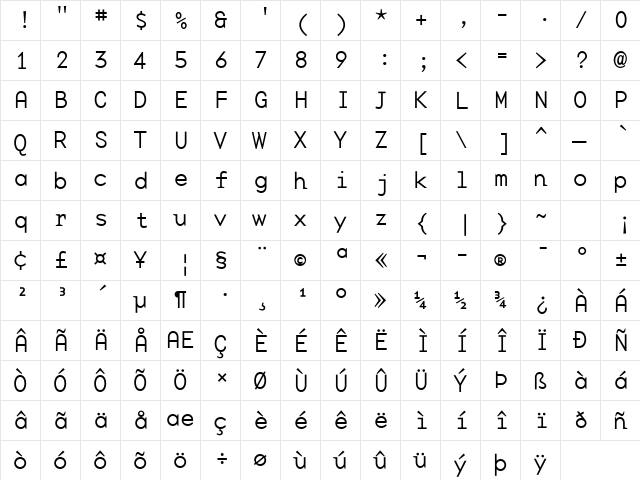
BaseMonoWide-Thin Thin Font Preview
Design Context for BaseMonoWide-Thin Typeface
BaseMonoWide-Thin uses fixed-width spacing throughout, giving it the structured, systematic character associated with coding environments and technical documentation. Its slender proportions lend an understated elegance to any composition.
Well-suited to data-driven dashboards, coding tutorials, and any design that wants to reference the world of programming.